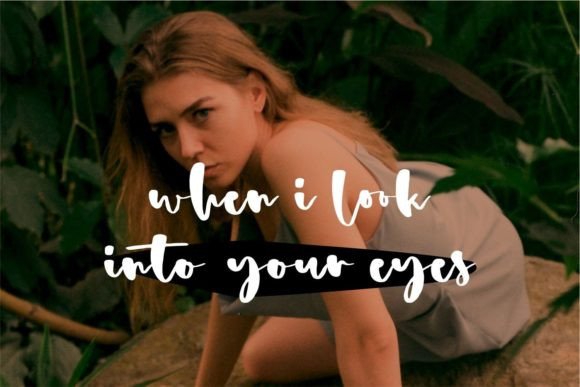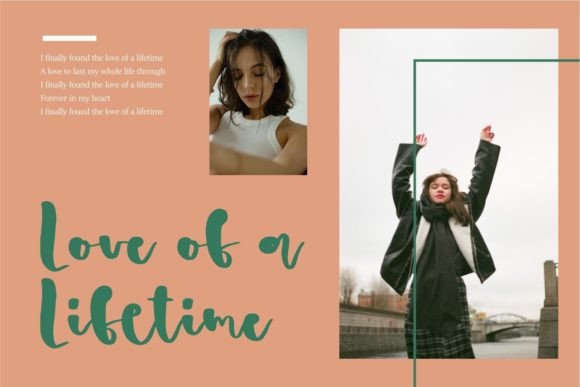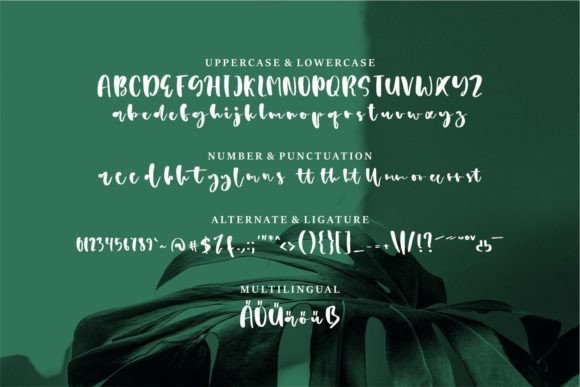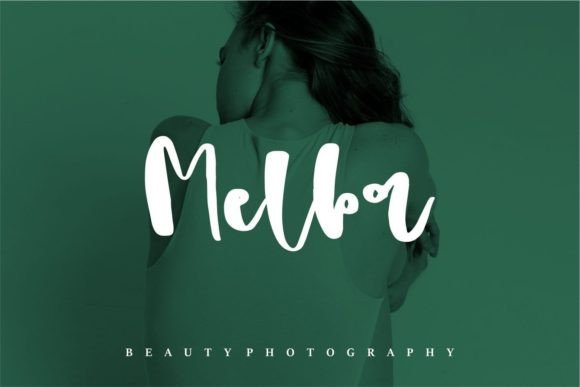
Anderst Font
Anderst is a beautiful and refined script font that exudes a classy, elegant, and modern aesthetic. Its versatile design makes it well-suited for a variety of creative applications, including logos, branding, invitations, stationery, wedding designs, social media posts, and more. With its sophisticated appearance, Anderst adds a touch of elegance to your projects, elevating them with its timeless script style.
The font’s classiness and elegance make it a perfect choice for projects that require a touch of sophistication. Whether you’re designing a logo, creating branding materials, or working on wedding invitations, Anderst brings a sense of refinement that resonates with a modern and stylish audience.
Anderst’s versatility shines through in its application across different mediums. From digital platforms like social media posts to physical materials like stationery, the font adapts seamlessly, ensuring a consistent and elegant look across various design elements.
In the context of invitations and wedding designs, Anderst’s refined script enhances the overall romantic and luxurious atmosphere. Its flowing characters and modern appeal make it a standout choice for creating visually stunning and memorable invitations that capture the essence of special events.
The PUA encoding feature of Anderst adds an extra layer of convenience to your design process. With easy access to a range of glyphs and ligatures, customization becomes effortless, allowing you to tailor the font to suit specific design needs and preferences.
In summary, Anderst is more than just a font; it’s a design asset that brings a beautiful and refined script to your projects. Whether you’re working on logos, branding, invitations, or any other creative endeavor, Anderst’s classy and elegant look enhances the visual appeal and leaves a lasting impression on your audience.